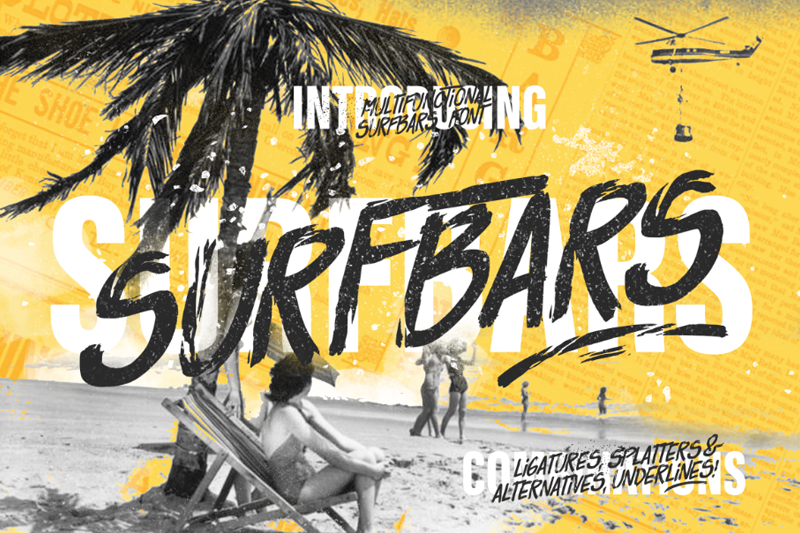
Preview and download Surfbars Font. Created by Leonard Posavec - LeoSupply.co in Script Brush styles with Free for personal use license.
Font name: | Surfbars |
Author: | Leonard Posavec - LeoSupply.co |
FREE FOR PERSONAL USE ONLY! If you want to use it for commercial purposes please buy a licence here: https://leosupply.co/shop/product/surfbars-font Surfbars is a handmade multi-language Latin / Cyrillic font that was inspired by surfing, sand, and playful style. Comes in Regular, Italic, Underlines, and Splashes This font includes a full set of fun and unique uppercase and lowercase letters, numerals, and a large range of punctuation. Overall it contains more than 760 glyphs with 220 alternatives and +10 interesting ligatures, swashes, and underlines. With this font, you have complete freedom to use and combine various different letters, alternatives, and ligatures, by that you can be sure that your design or any kind of project will be a unique masterpiece. Also, the combination and usage of different letters and ligatures gives you the opportunity to have fun and at the same time create your own unique style. THE PRODUCT CONTAINS: � More than 760 glyphs, 220 alternatives, 60 ligatures which are unique and playful � This font includes Latin Plus diacritics. � Surfbars support Latin Plus languages (Latin Multilingual language support) � Surfbars support the Cyrillic alphabet. |